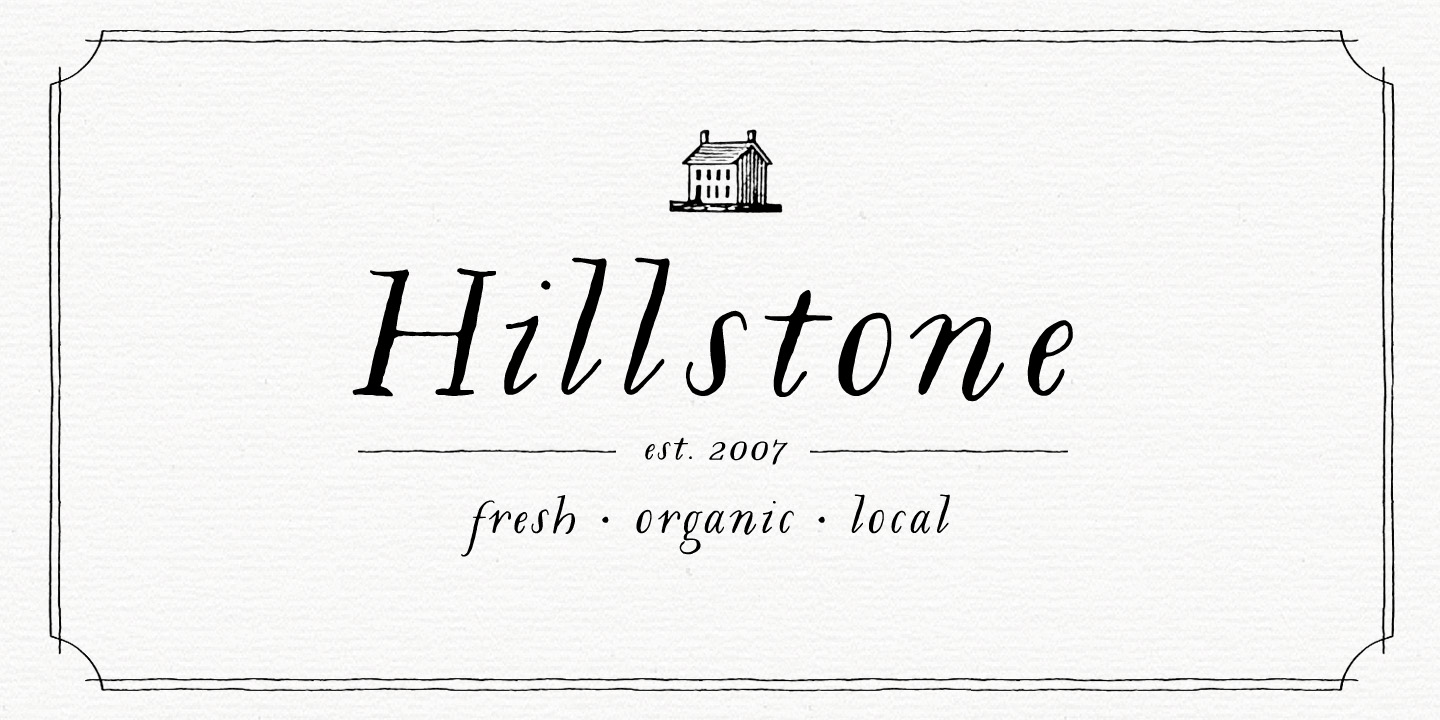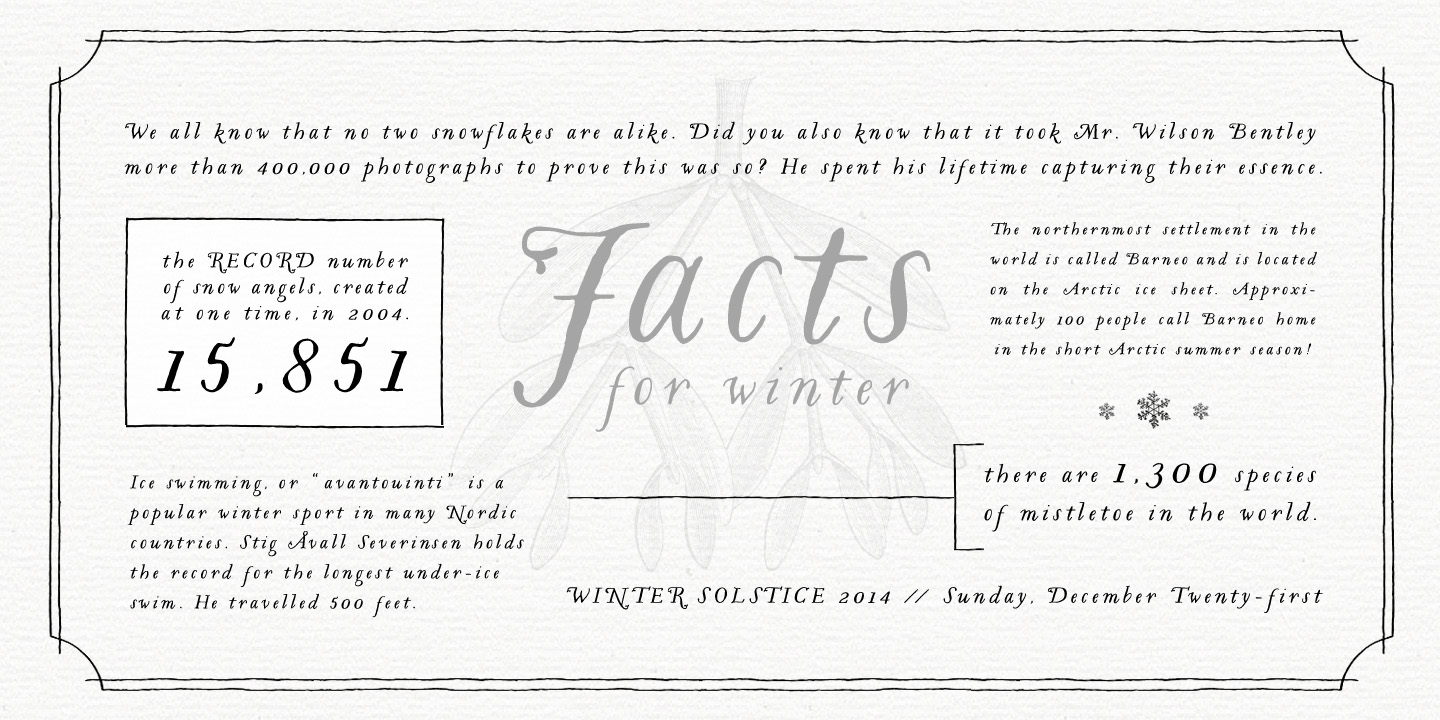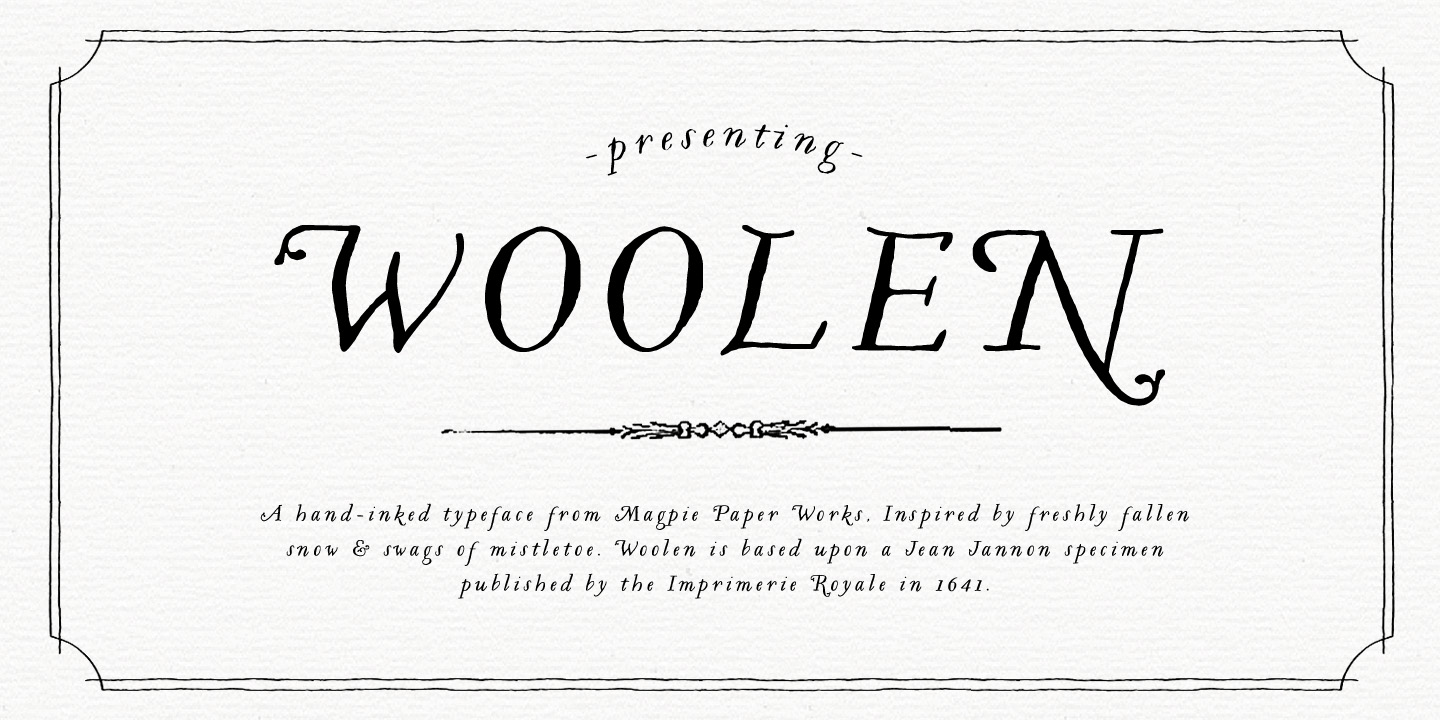
Woolen
Font Family by Magpie Paper Works
Buy NowWoolen is a font inspired by freshly fallen snow and swags of mistletoe. Her italicized letters are based upon a type specimen by Jean Jannon, originally published by the Imprimerie Royale in 1641. Many of the capital letters are decorated with small sprouts of mistletoe, though they can also be spring leaves, depending on how you use the font! This font is a subtle and organic update to a classic serif typeface - she is warm and historical without being too trendy.
Woolen is perfect for logos and branding - she shines in retail business identity work including farms, shops and restaurants. Even though the font is slanted, it reads beautifully as body text and display headlines. Set your next project in Woolen!